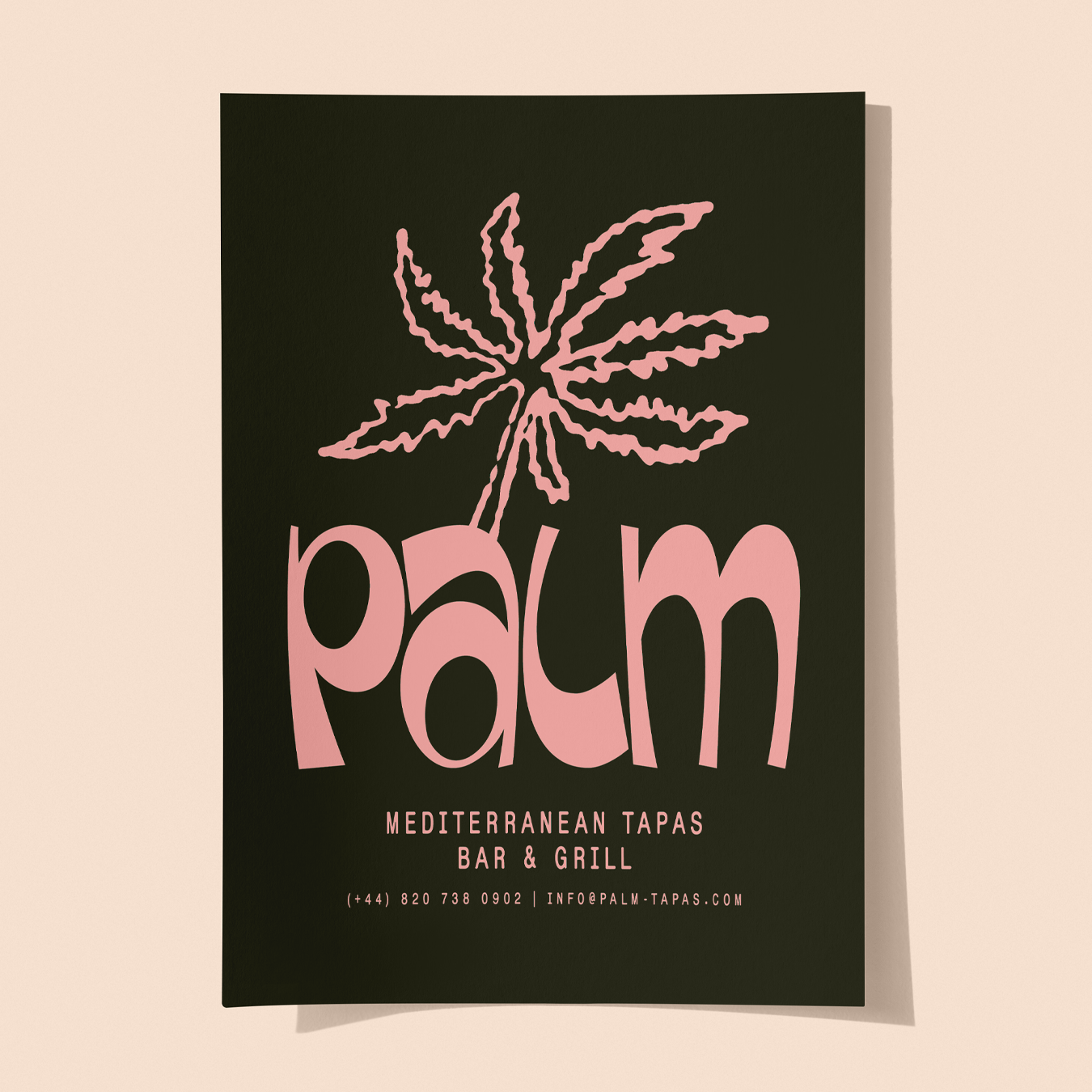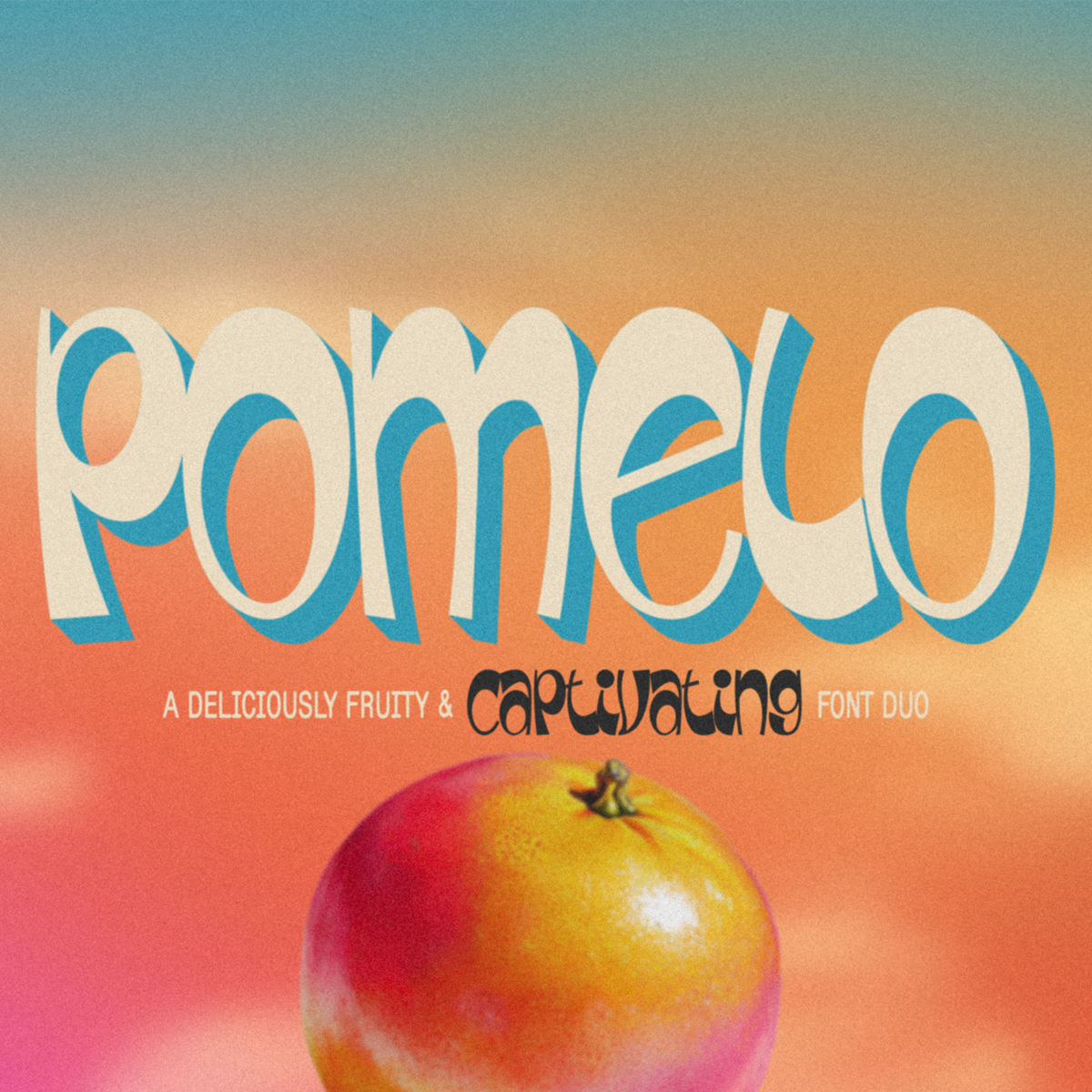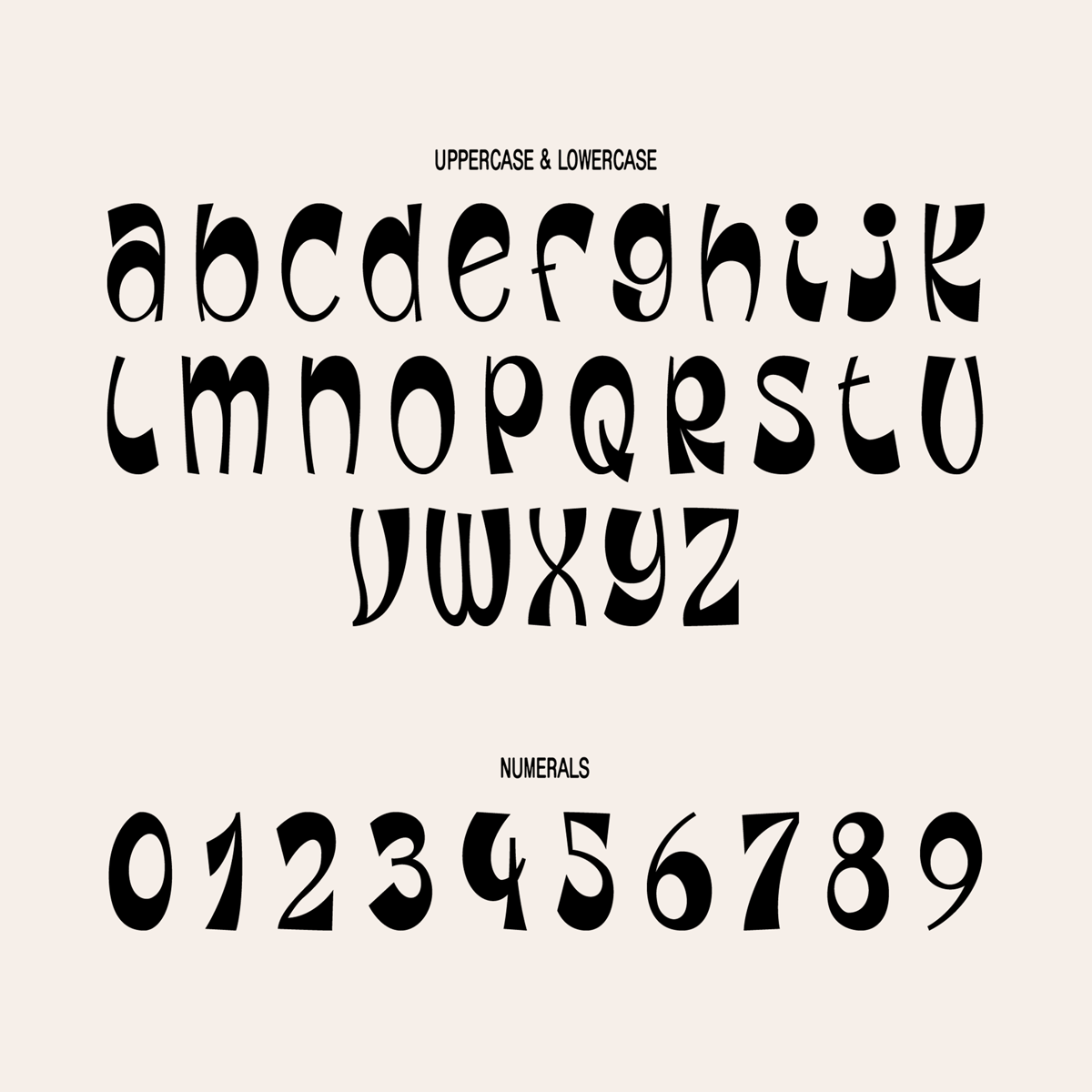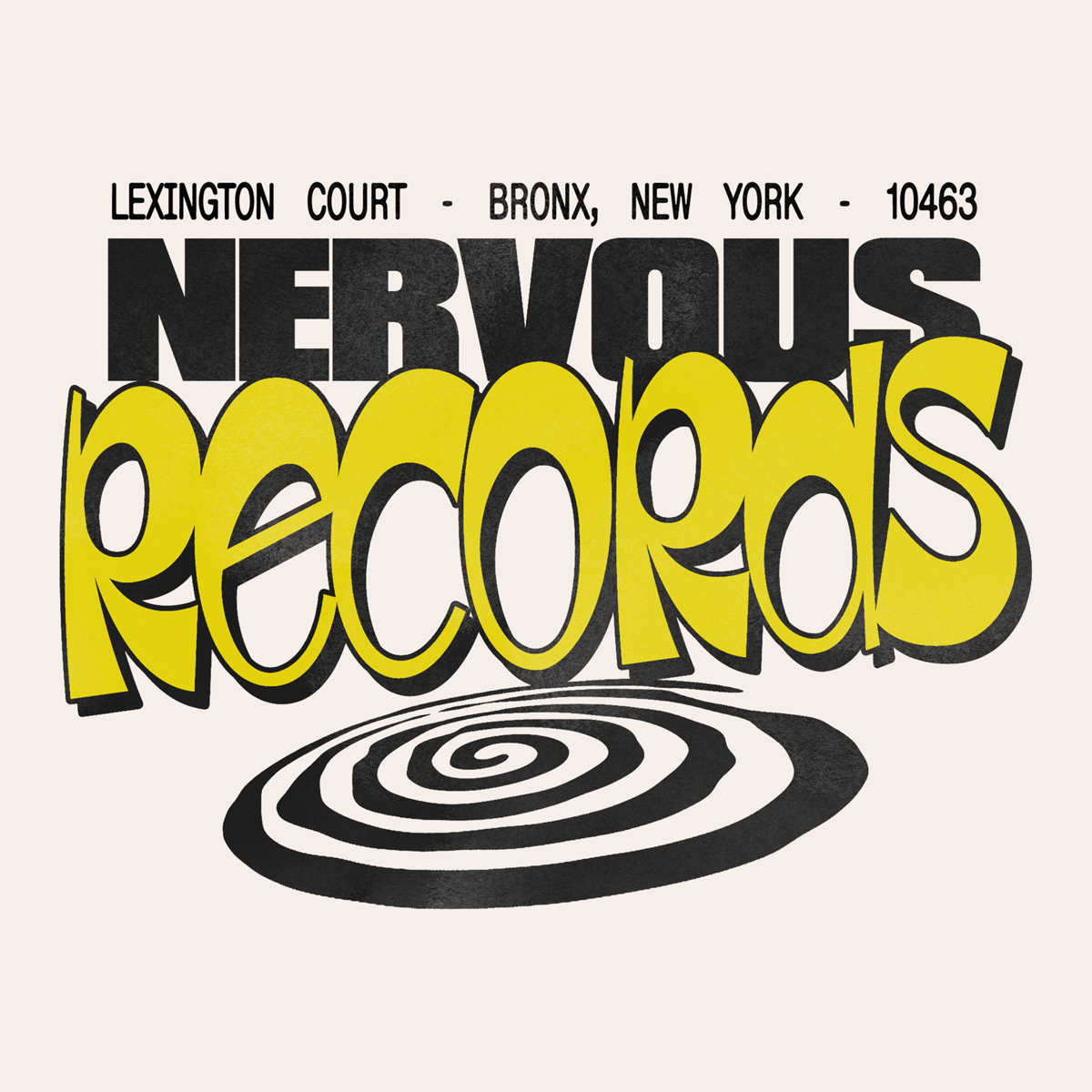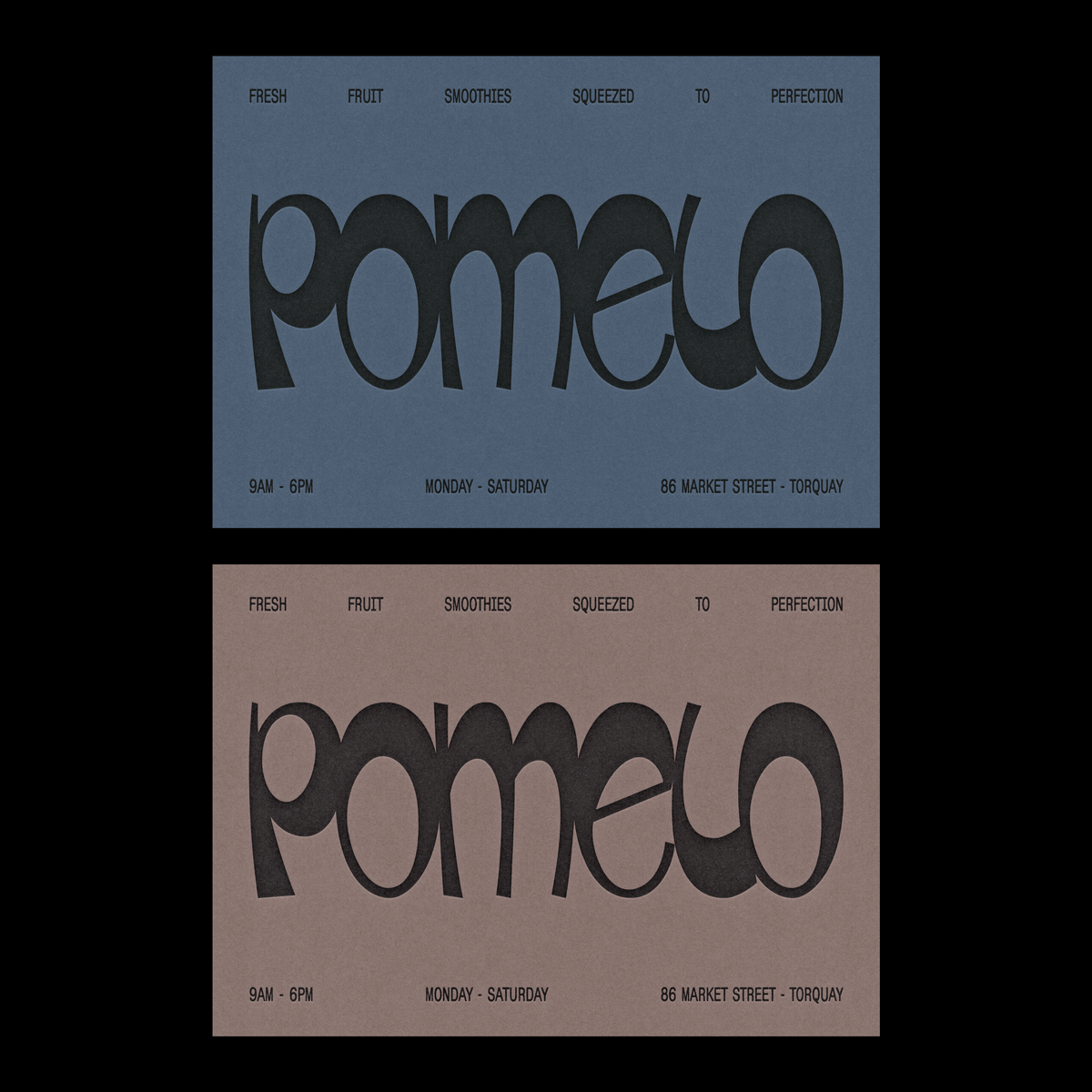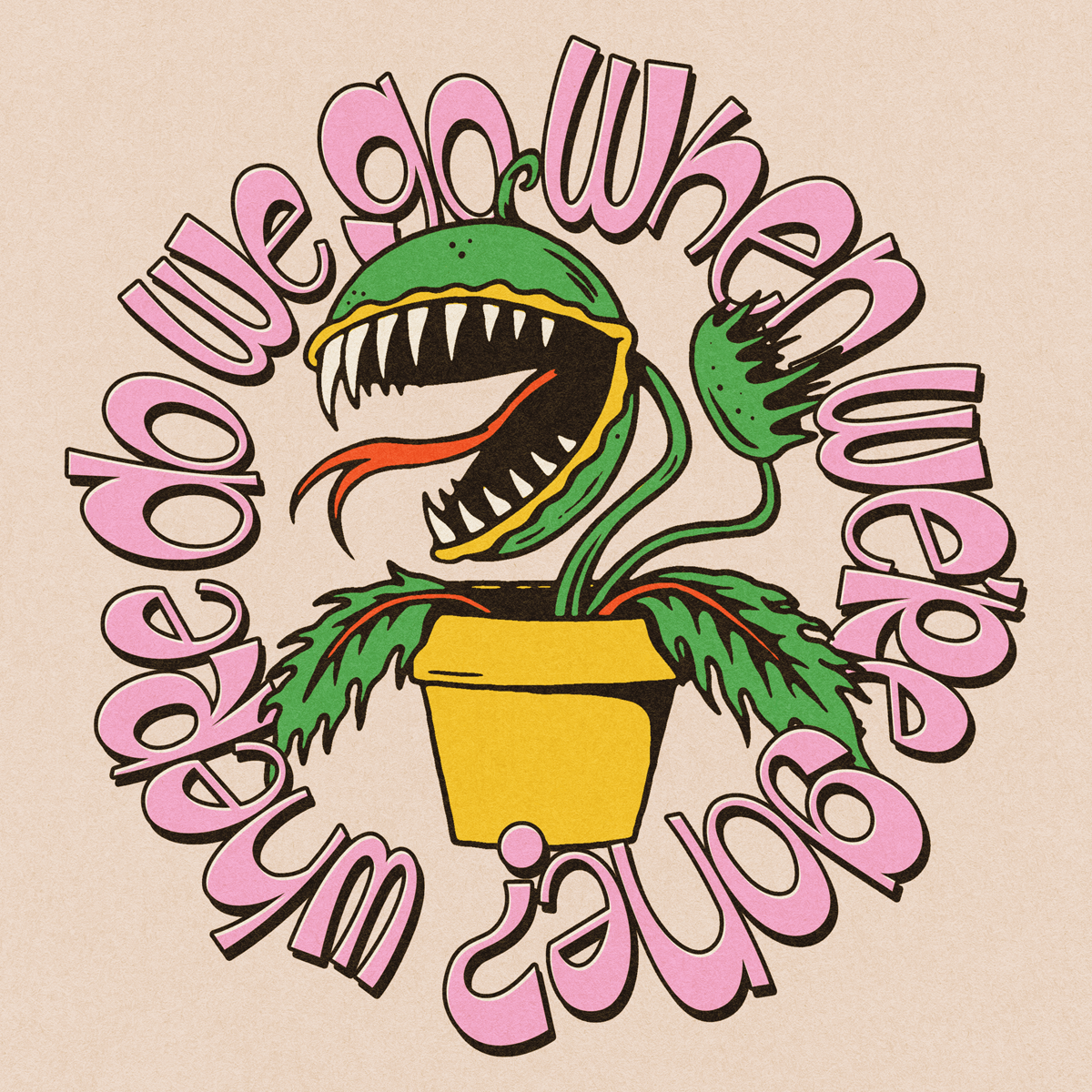
Pomelo Font Duo
Pomelo is my fruit fun times display font with an additional monospaced font to pair nicely with! This font is a versatile mother chucker that you can easily use to bang out logos, merchandise, posters, video titles and so much more!
Full alphabet (Uppercase & Lowercase are identical)
Numbers and essential symbols